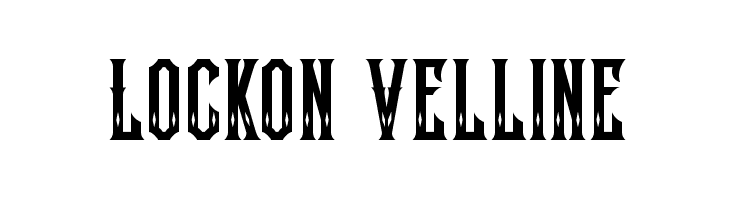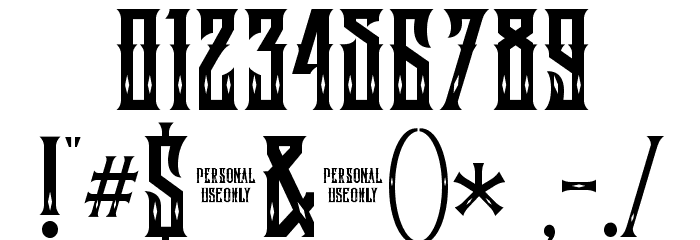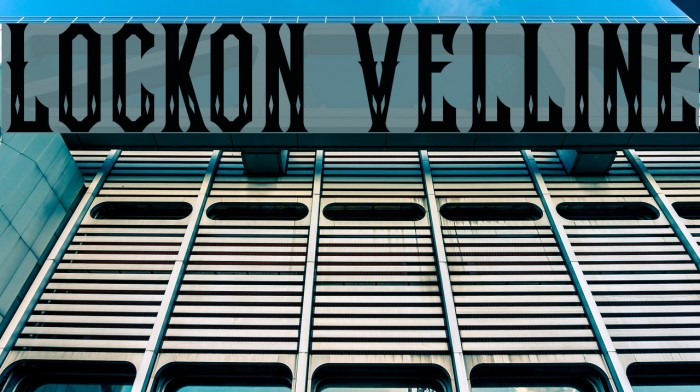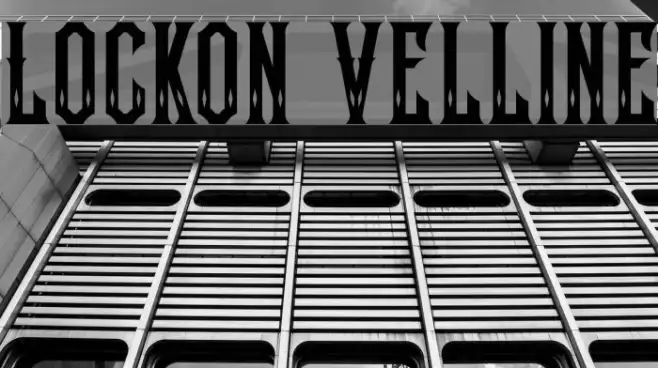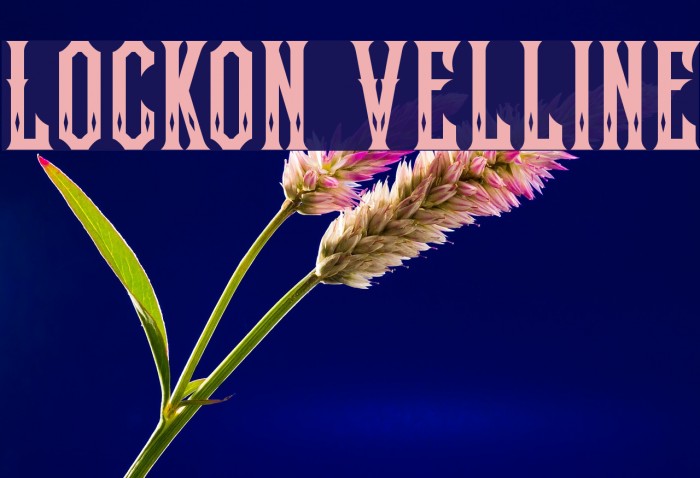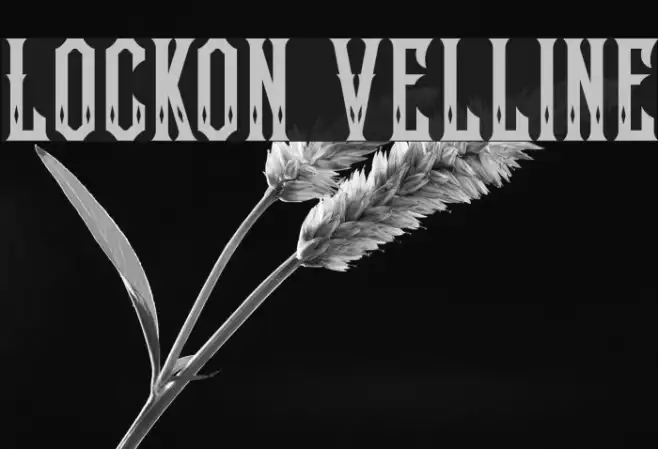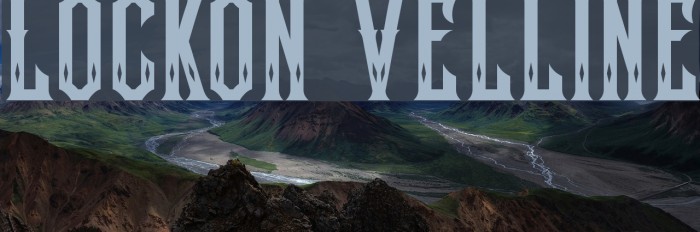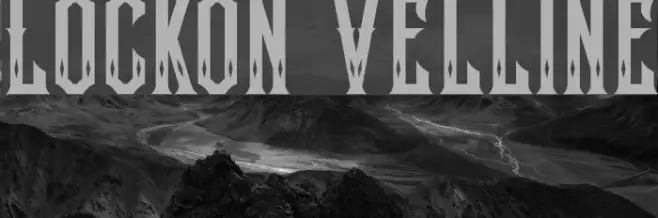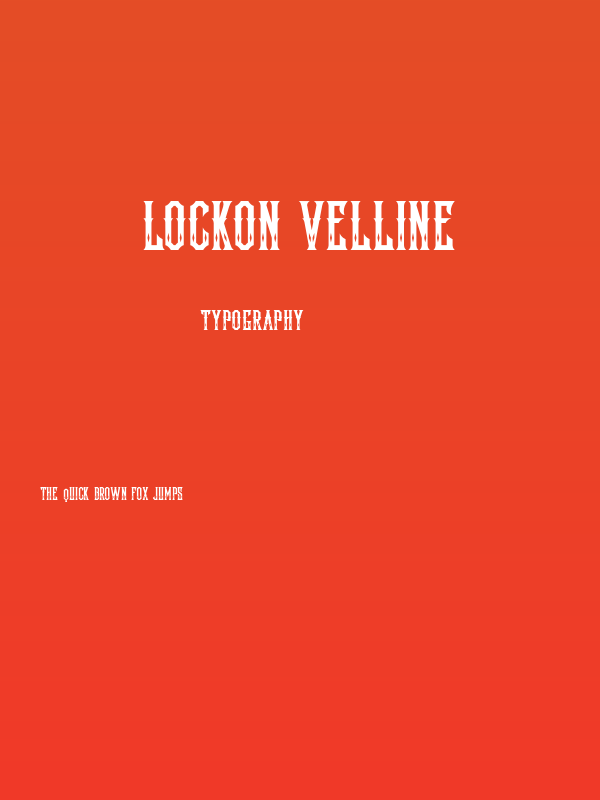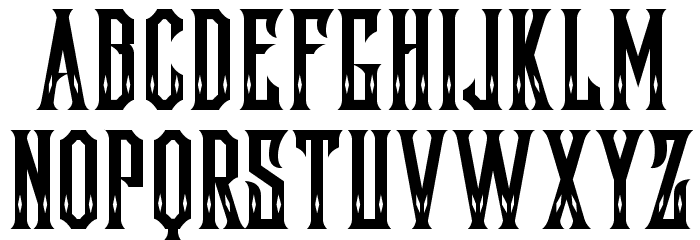
Lockon Velline Font
Lockon Velline Description
This font features a bold and striking design with sharp, angular edges and a high level of contrast between thick and thin strokes. The characters are tall and narrow, giving them a condensed appearance. The unique cut-out details within each letter add a decorative and modern flair, making it stand out in any design. The uppercase and lowercase letters maintain a consistent style, while the numbers and special characters complement the overall aesthetic. This font is ideal for creating eye-catching headlines or logos that require a strong visual impact.
Proposed ProjectsIdeal for branding, posters, album covers, and any project needing a bold, modern touch.